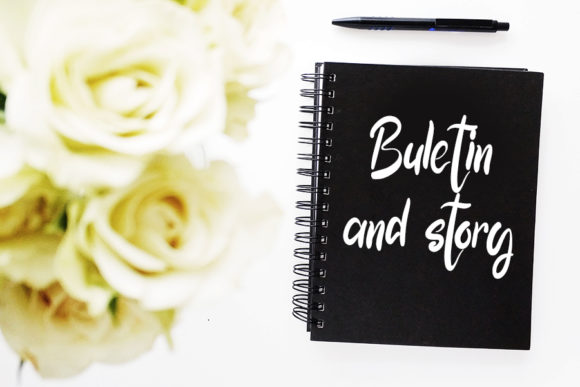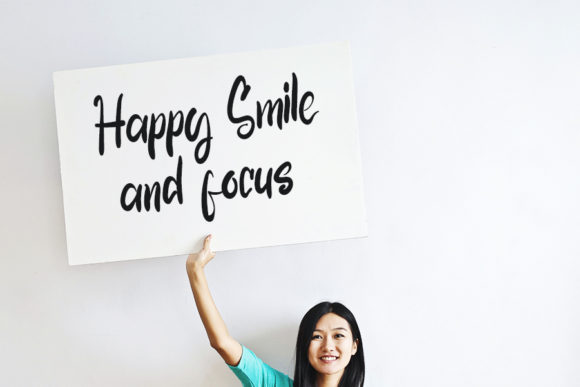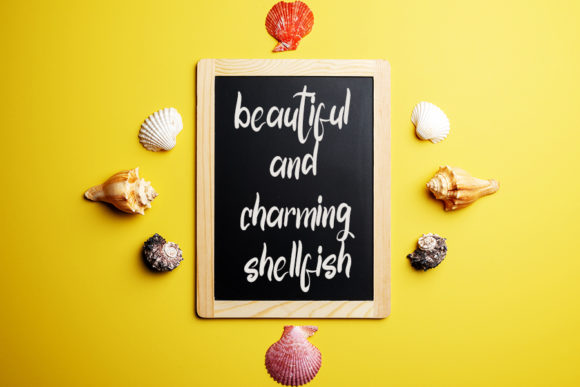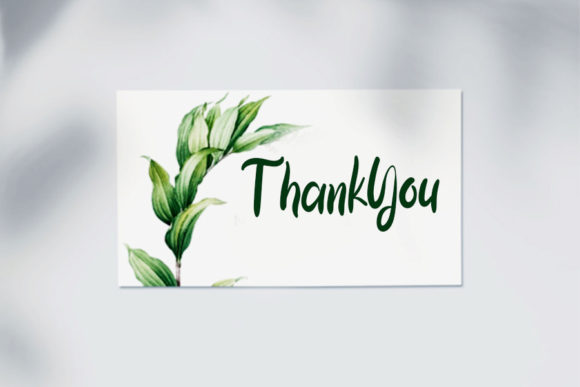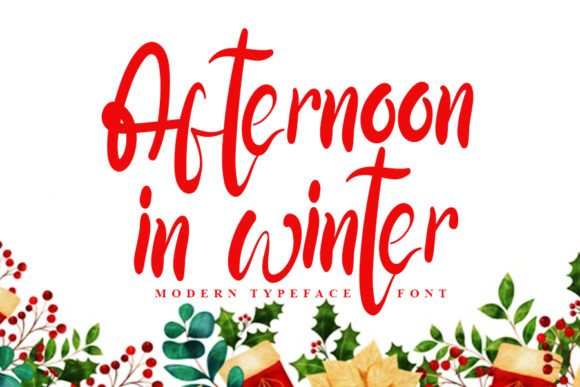
Discover the Magic of Afternoon in Winter Font
Are you a designer, crafter, or typography enthusiast looking for a unique and captivating font to elevate your creative projects? Look no further than the enchanting Afternoon in Winter Font. This stunning script font is crafted with beautiful flowing lines and bold letters, offering endless possibilities for artistic expression.
The Story Behind Afternoon in Winter Font
Imagine a font that embodies the essence of a serene winter afternoon, where the soft glow of the sun casts a warm ambiance on the snow-covered landscape. The Afternoon in Winter Font brings this idyllic scene to life, with its elegant and fluid script that seems to dance across the page. Each letter is carefully crafted to evoke a sense of wonder and magic, making it perfect for projects that require a touch of whimsy and sophistication.
Key Features of Afternoon in Winter Font
• Beautiful Flowing Lines: The font features intricate connections between letters, creating a sense of movement and fluidity.
• Bold Letters: The bold and sturdy letterforms ensure that your text remains legible and visually appealing, even at smaller font sizes.
• Endless Possibilities: Use Afternoon in Winter Font for a wide range of projects, from wedding invitations and branding materials to digital graphics and craft patterns.
• Script Font Versatility: The font’s script style allows for creative freedom, enabling you to experiment with various design elements, such as flourishes and swashes.
Design Inspiration with Afternoon in Winter Font
Whether you’re a seasoned designer or a crafty DIY enthusiast, Afternoon in Winter Font is sure to inspire your creative endeavors. Here are a few ideas to get you started:
• Wedding Invitations: Add a touch of romance and elegance to your wedding stationery with this beautiful script font.
• Branding and Packaging: Use Afternoon in Winter Font to create eye-catching logos, labels, and packaging that stands out from the crowd.
• Digital Graphics: Create stunning social media graphics, blog headers, and email newsletters that showcase your brand’s personality.
• Craft Patterns: Incorporate the font into your craft patterns, such as knitting, sewing, or crochet designs, for a unique and personalized touch.
Tips for Working with Afternoon in Winter Font
To get the most out of this beautiful font, here are some tips to keep in mind:
• Experiment with Font Sizes: Play with different font sizes to achieve the perfect balance between boldness and elegance.
• Pair with Complementary Fonts: Combine Afternoon in Winter Font with complementary fonts to create visually appealing contrast and hierarchy.
• Add Flourishes and Swashes: Take advantage of the font’s script style by adding flourishes and swashes to enhance your design.